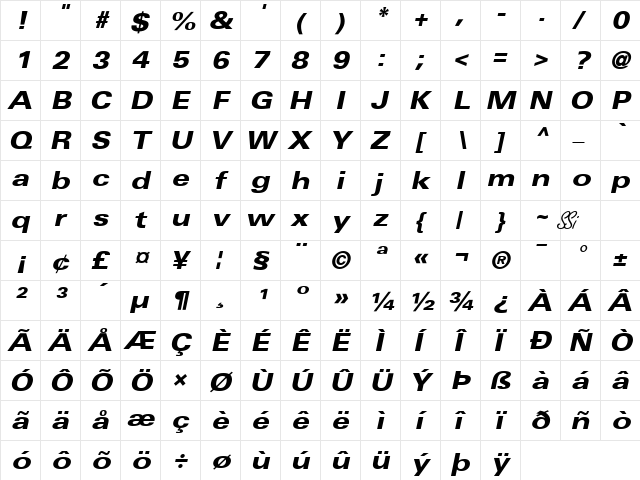
Nova Black Expanded SSi Extra Bold Expanded Italic Font Preview
Design Context for Nova Black Expanded SSi Typeface
Nova Black Expanded SSi is a composed and adaptable typeface that performs quietly and consistently across a wide range of design contexts. The dynamic lean of this cut emphasises speed and emphasis in any layout. Its bold stroke weight gives it real presence on the page.